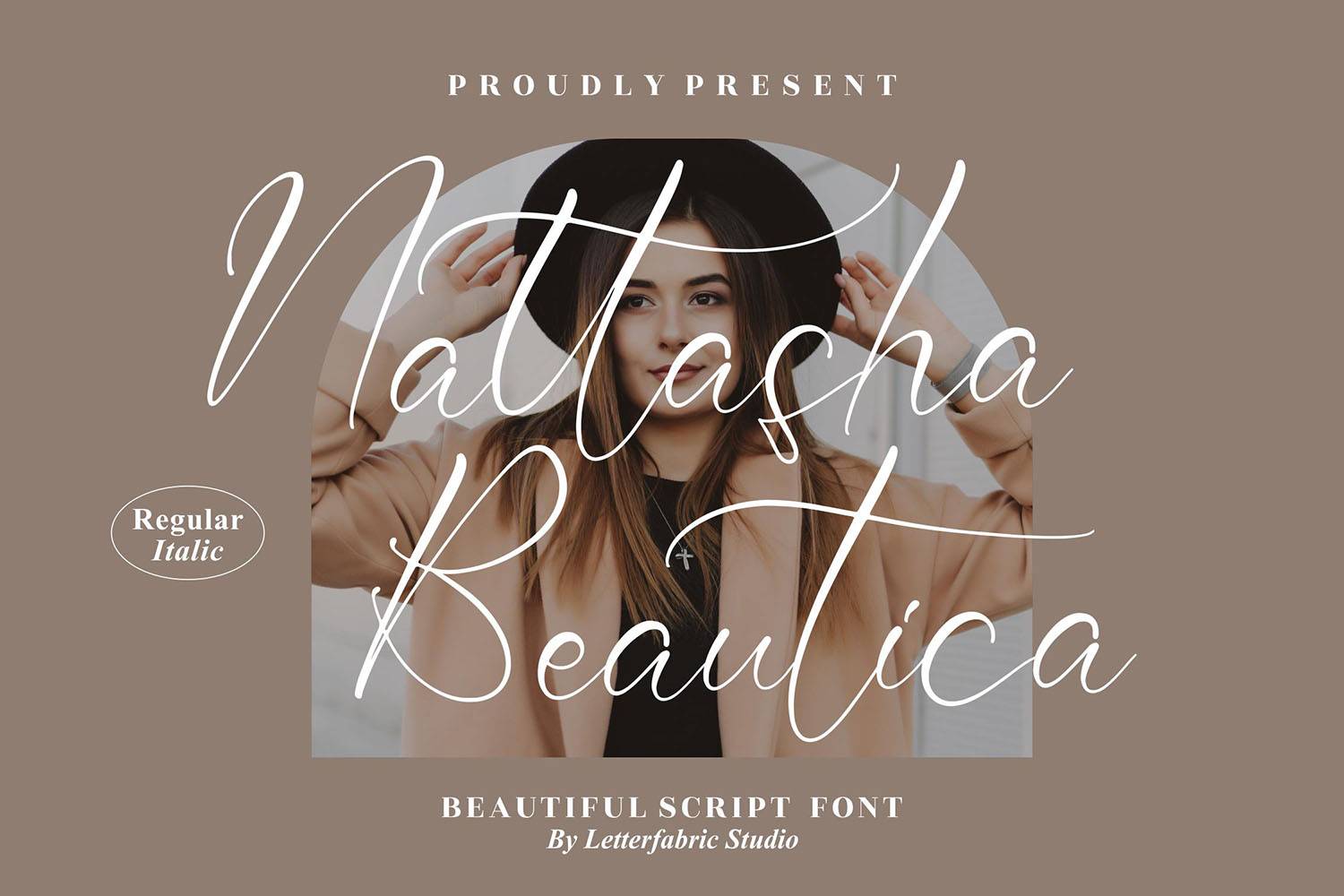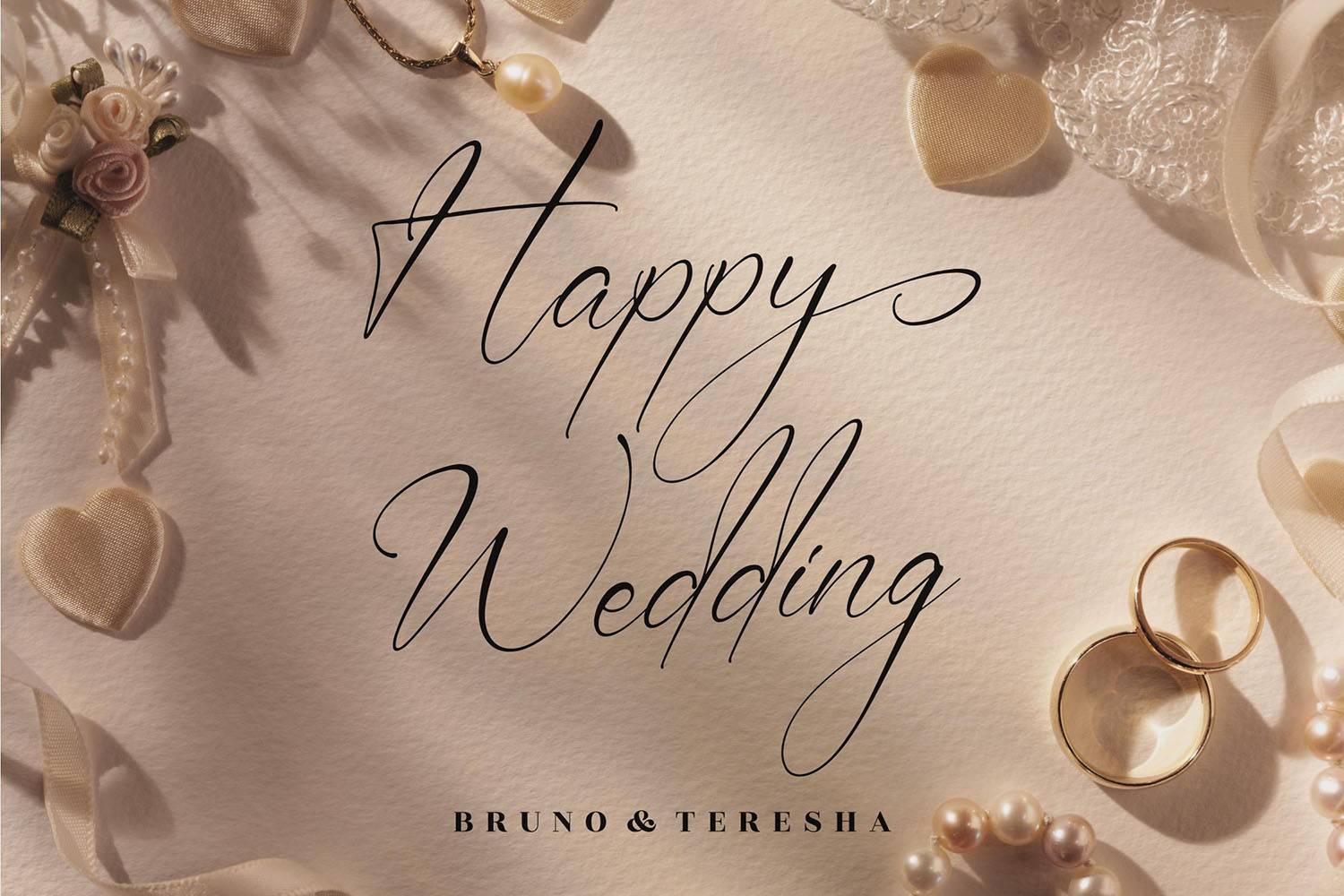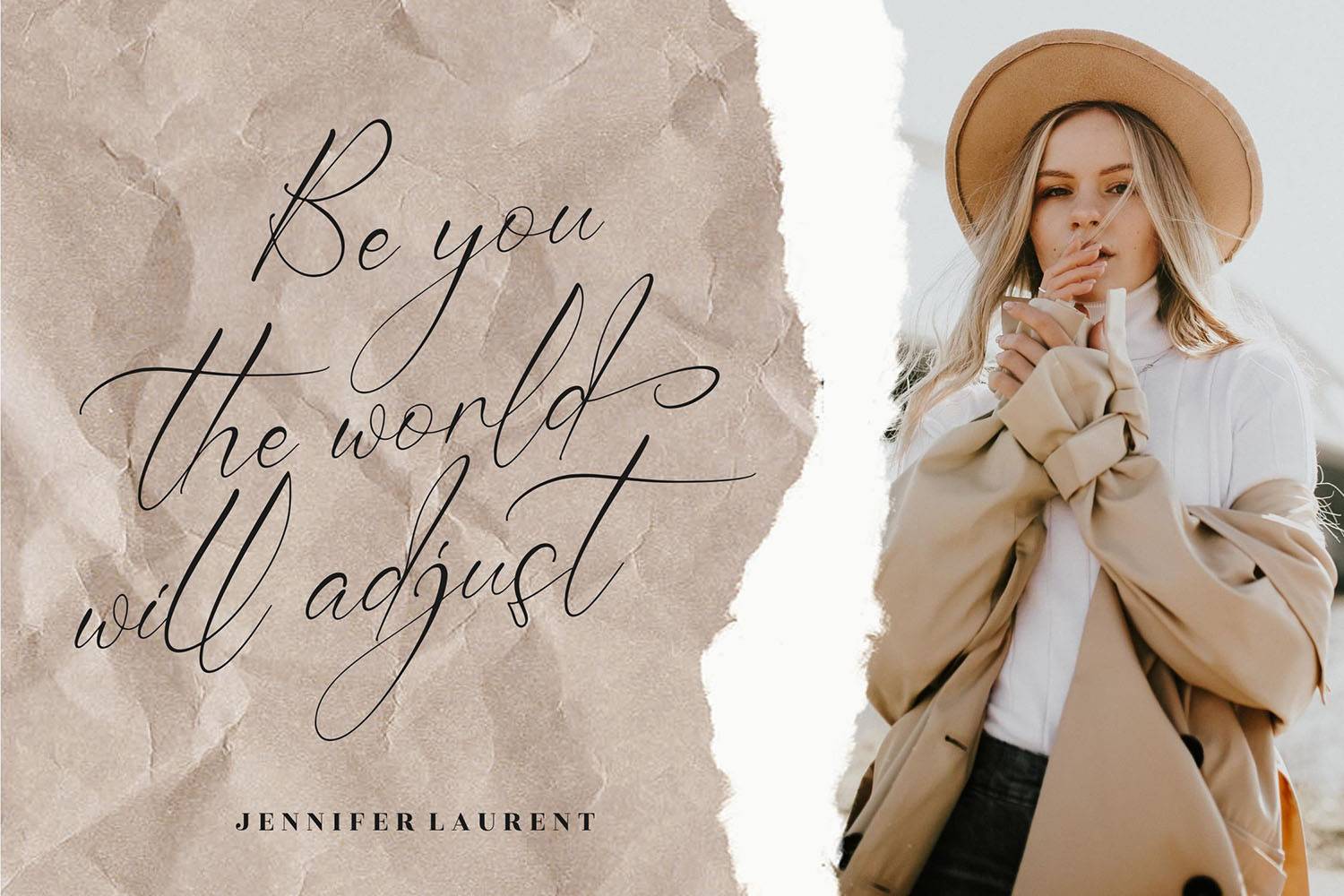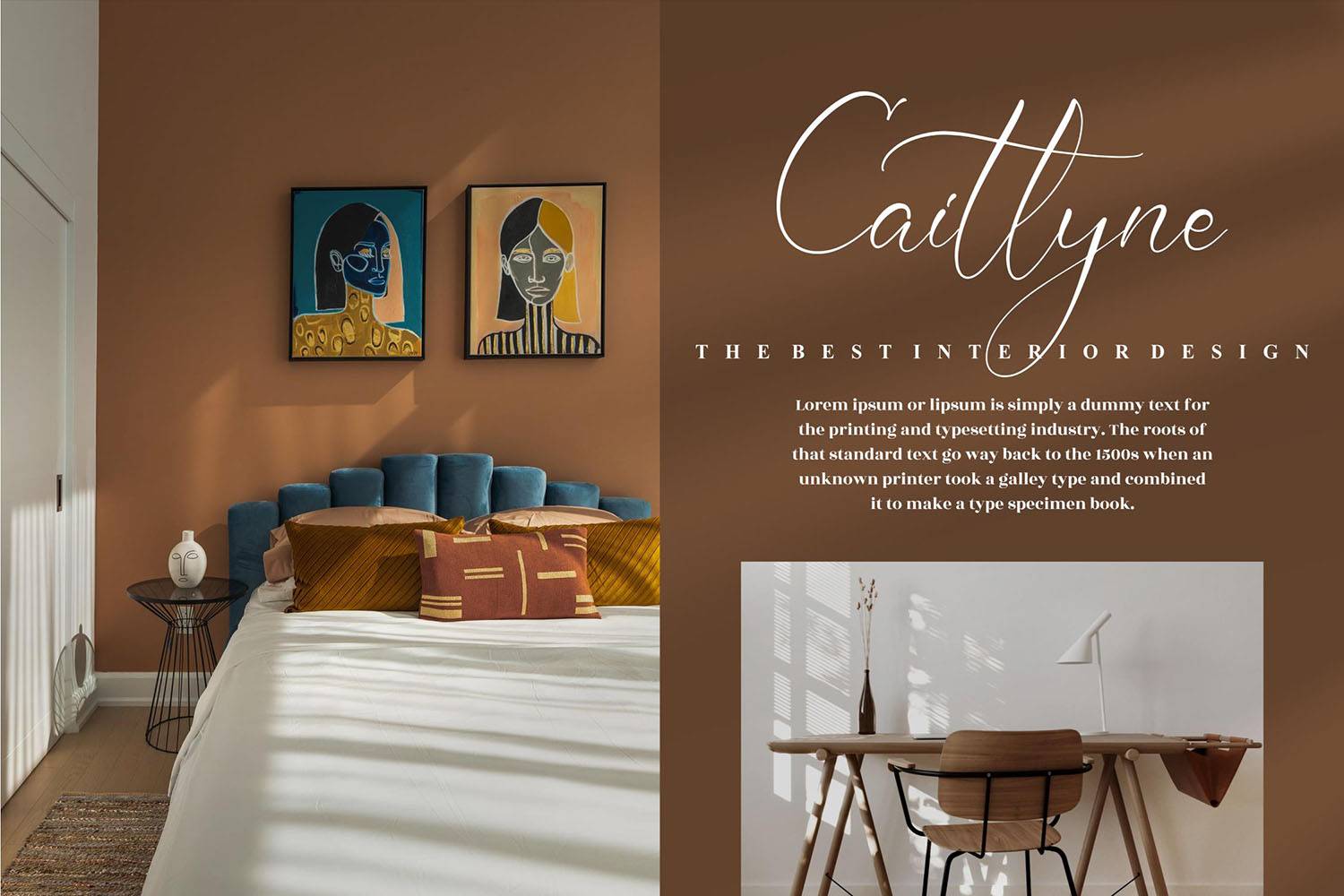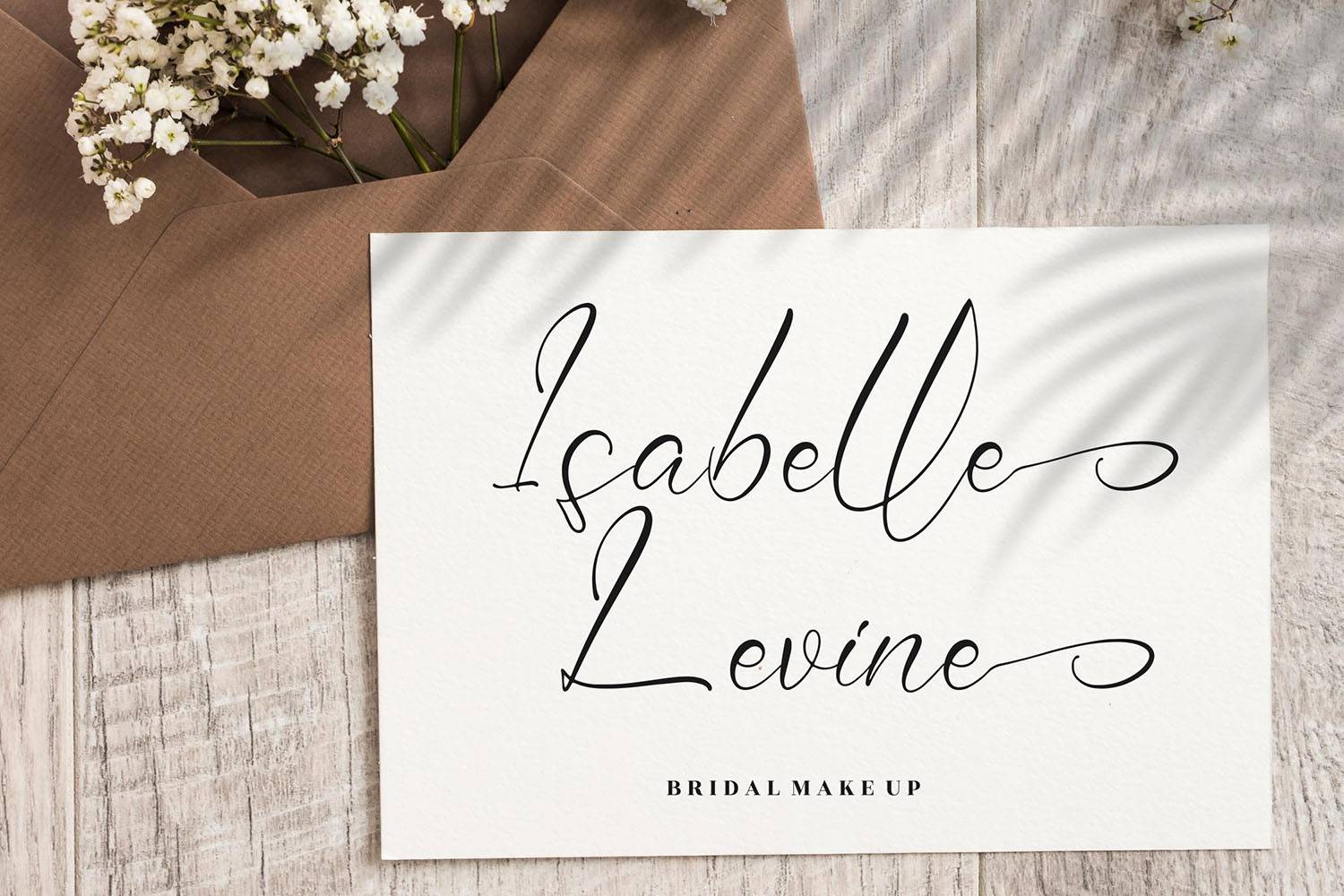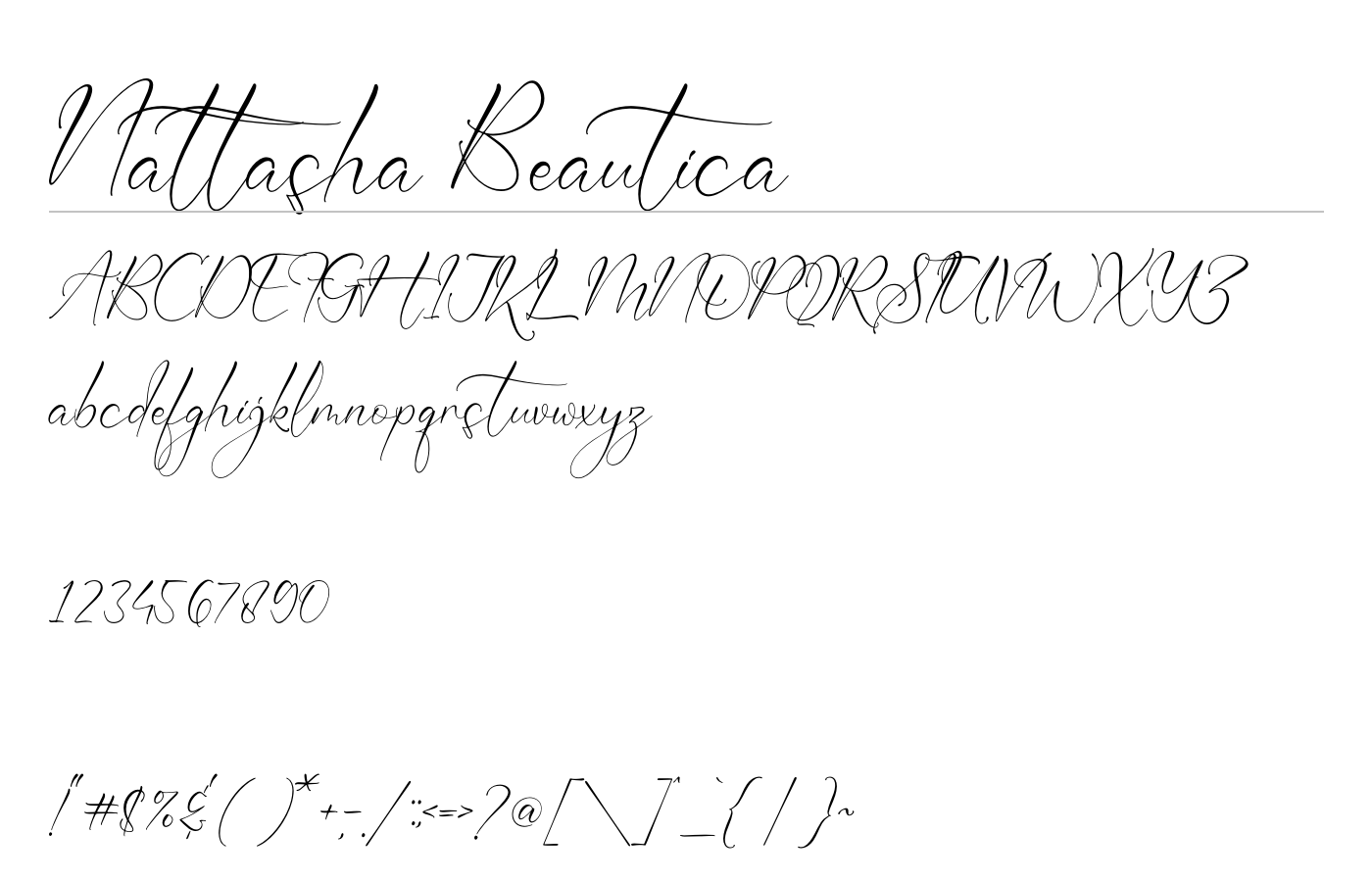
Nattasha Beautica is an elegant, delicate script font characterized by its thin, flowing strokes and graceful, calligraphic style. Its slender, airy letterforms with high contrast and refined swashes evoke a sense of sophistication and femininity, making it ideal for luxury branding, wedding invitations, and stylish editorial projects where a refined, personal touch is desired. This font shines best in large sizes for headlines or logos, where its intricate details can truly stand out.
Nattasha Beautica Font
About Nattasha Beautica Font